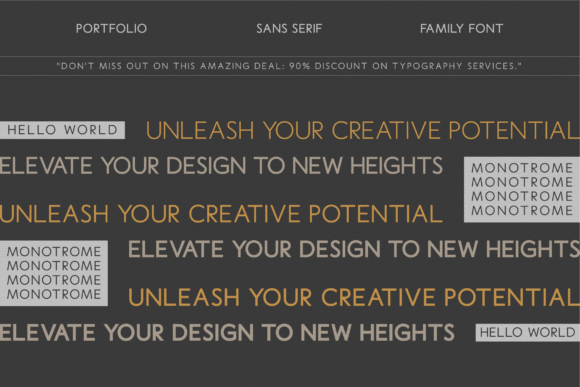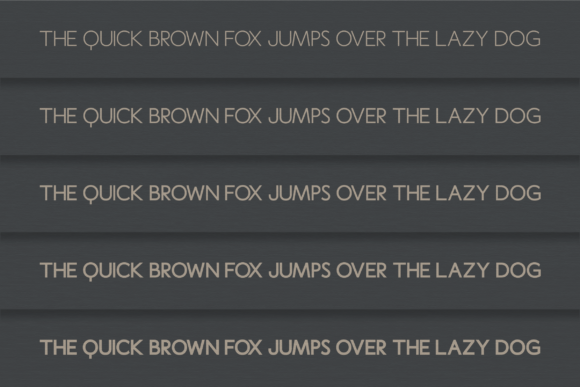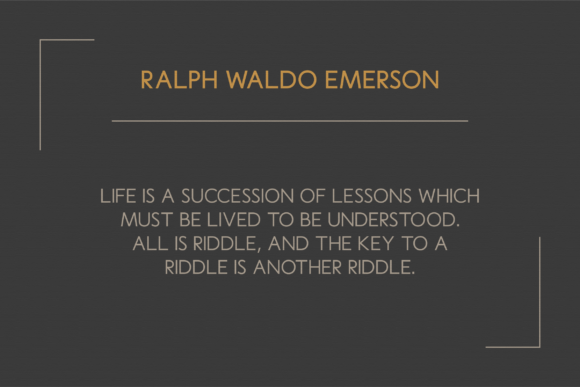
Introduction to Monotrome Font
Discover the epitome of understated elegance in our Monotrome font family.
This refined sans serif collection, featuring five unique weights, masterfully weaves together elements of modern flair and luxurious feel Precision-crafted, Monotrome effortlessly elevates any project, be it a glossy magazine, an intricate logo, or an eye-catching film poster.
Key Features of Monotrome Font
Why Choose Monotrome Font?